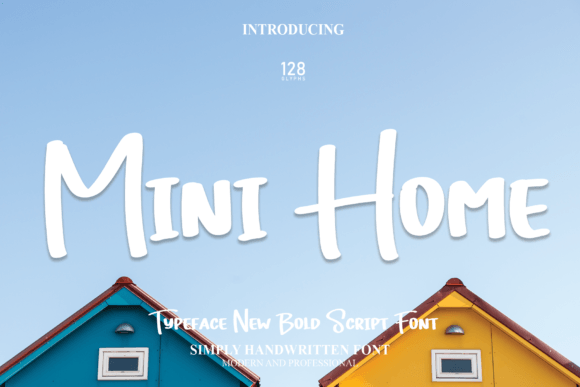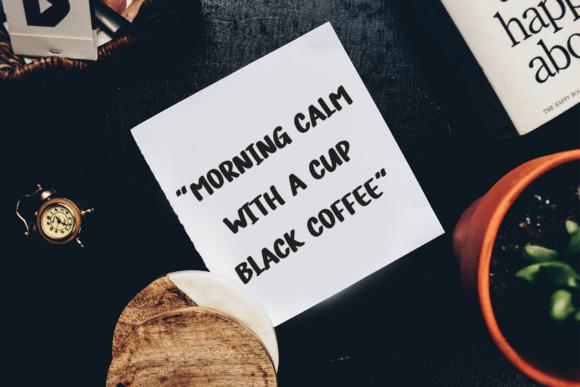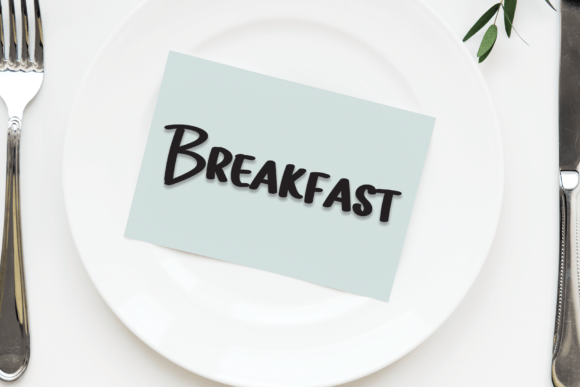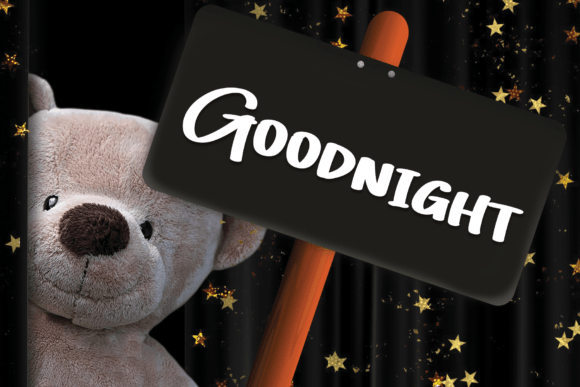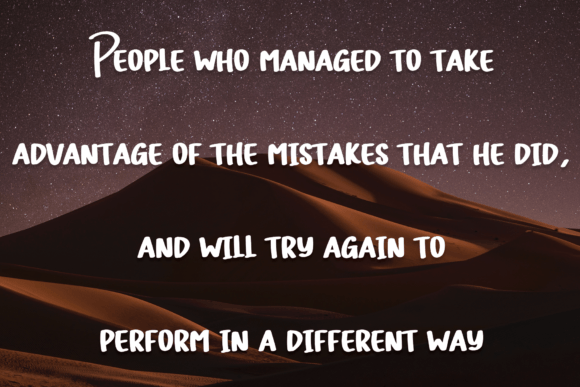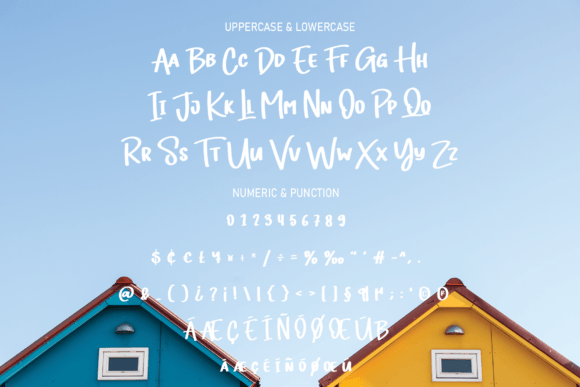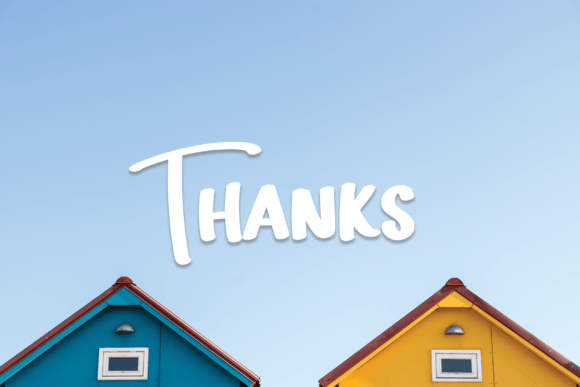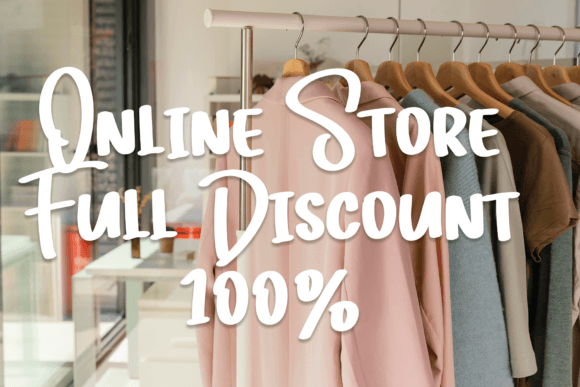
HomeScript FontsMini Home Font Script Fonts Mini Home Font FacebookXPinterestWhatsApp 1 of 8 Mini Home Font Poster 2... Mini Home Font Poster 3... Mini Home Font Poster 4... Mini Home Font Poster 5... Mini Home Font Poster 6... Mini Home Font Poster 7... Mini Home Font Poster 8... About Mini Home Font Mini Home is a friendly and casual handwritten font. Add it to your crafty ideas and you will love the results! DOWNLOAD NOW People also explored Roselina Script Ironside Font Syake Font Halloween Night Font Cheropoly Font Abcd Cursive Arrows Font Ovalime Font Sunblast Font Football Lace Font 346 0 TagsMini Home Font Previous articleHangout FontNext articleMinimalist Font LEAVE A REPLY Cancel reply Comment: Please enter your comment! Name:* Please enter your name here Email:* You have entered an incorrect email address! Please enter your email address here Website: Save my name, email, and website in this browser for the next time I comment. Personal Use Free Miss Love Personal Use Free Read more about this font Einstaint Personal Use Free Read more about this font Scarlove Personal Use Free Read more about this font Helsinki Personal Use Free Read more about this font BLOG Best Fonts for T-Shirt Design – Top 2025 Picks In 2025, t-shirt design has become more than just fashion—it's a form of self-expression. Whether you're... Best Fonts for YouTube Videos: Make Your Thumbnails Stand Out The 10 Best Handwriting Fonts to Add Personality to Your Designs Exploring Font Trends